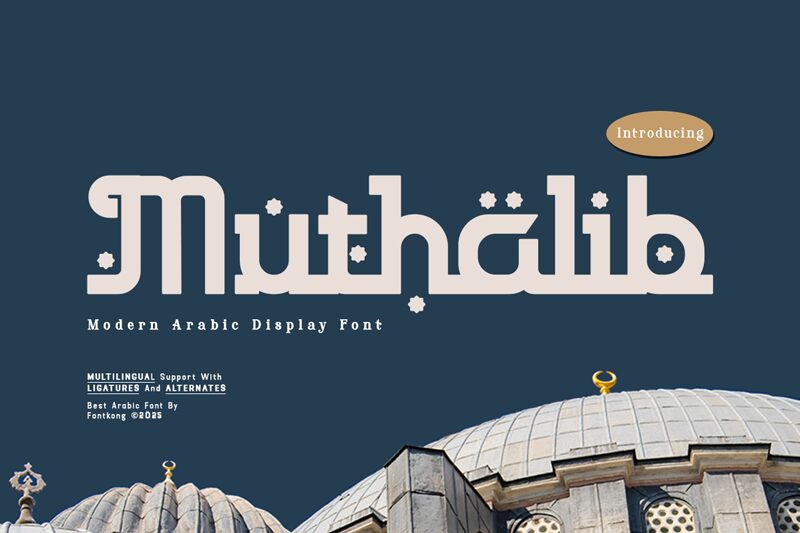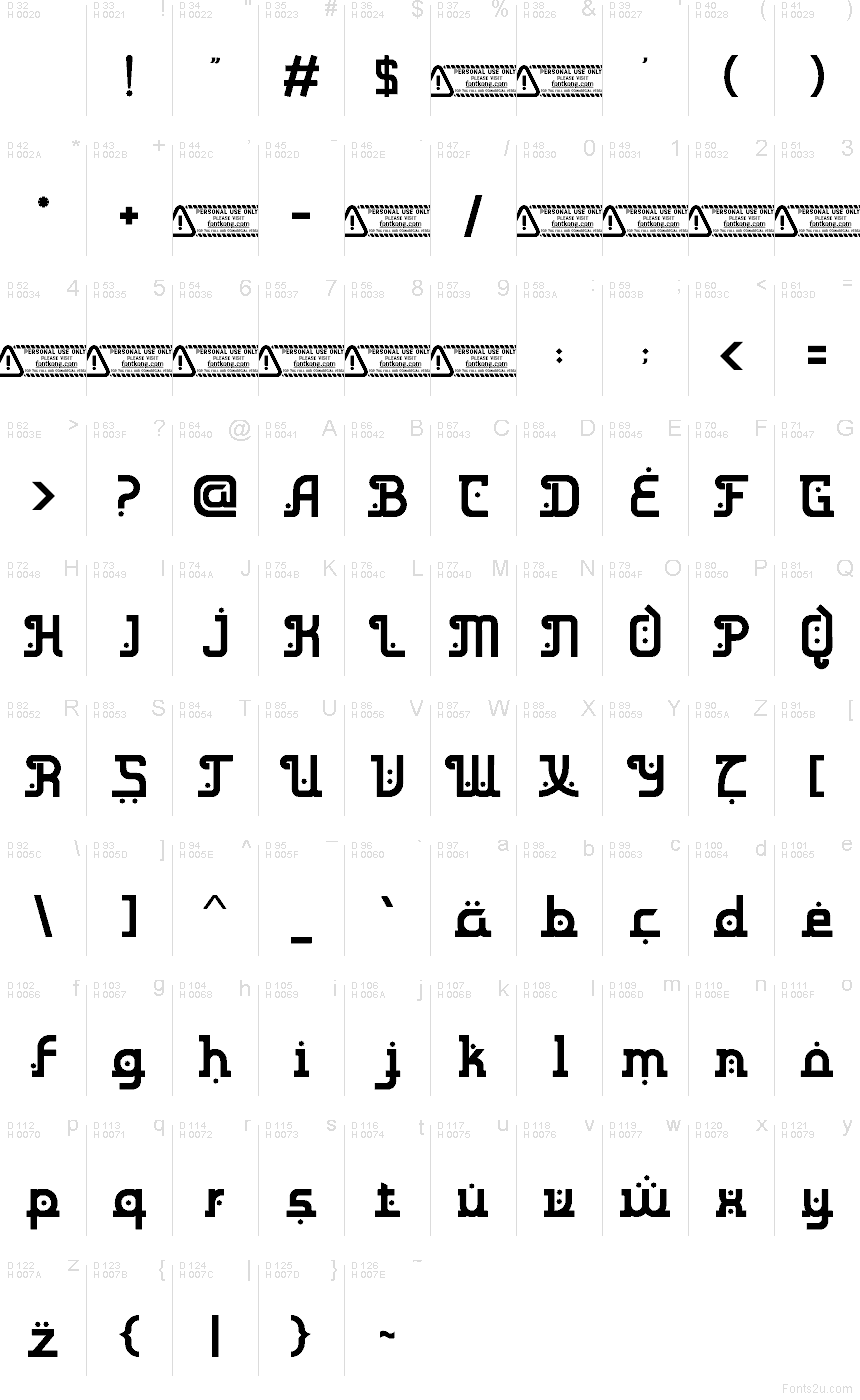
Muthalib font by Kong Font is a free faux Arabic foreign typeface that turns Latin letters into flowing, stylized script with a strong Middle Eastern flavor. Thick, rounded strokes connect in a band of inky black, while dotted accents punctuate the line like tiny ornaments, giving your words a rhythmic, hand-painted feel without sacrificing legibility. It’s bold, graphic, and instantly sets a scene.
Using Muthalib, you can brand a restaurant, theme a hookah lounge, title a game, dress a festival poster, or style packaging and event invites that need an exotic, cinematic touch. This free font shines in big headings and logos; keep body text in a clean geometric sans for contrast and let Muthalib handle the character and mood.